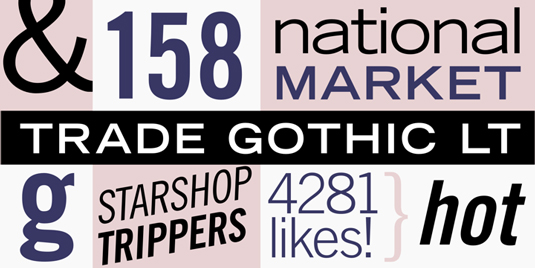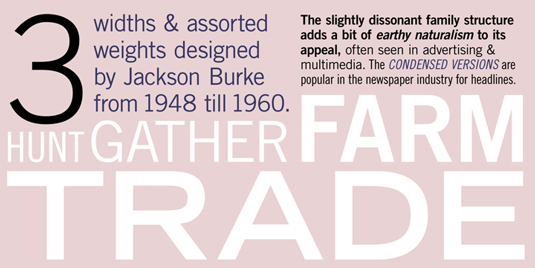
Font of the day: Trade Gothic
Trade Gothic by Jackson Burke
Trade Gothic was first designed by Jackson Burke back in 1948. He continued to work on further weights and styles until 1960 while he was director of type development for Mergenthaler-Linotype in the USA.
Trade Gothic is often seen in advertising and multimedia in combination with roman text fonts, and the condensed versions are popular in the newspaper industry for headlines.